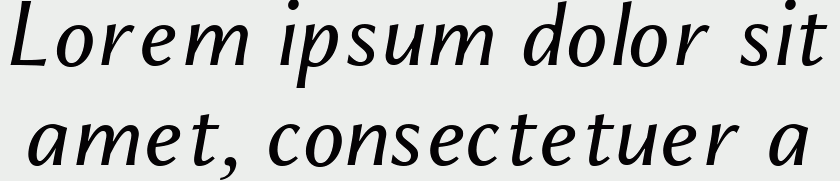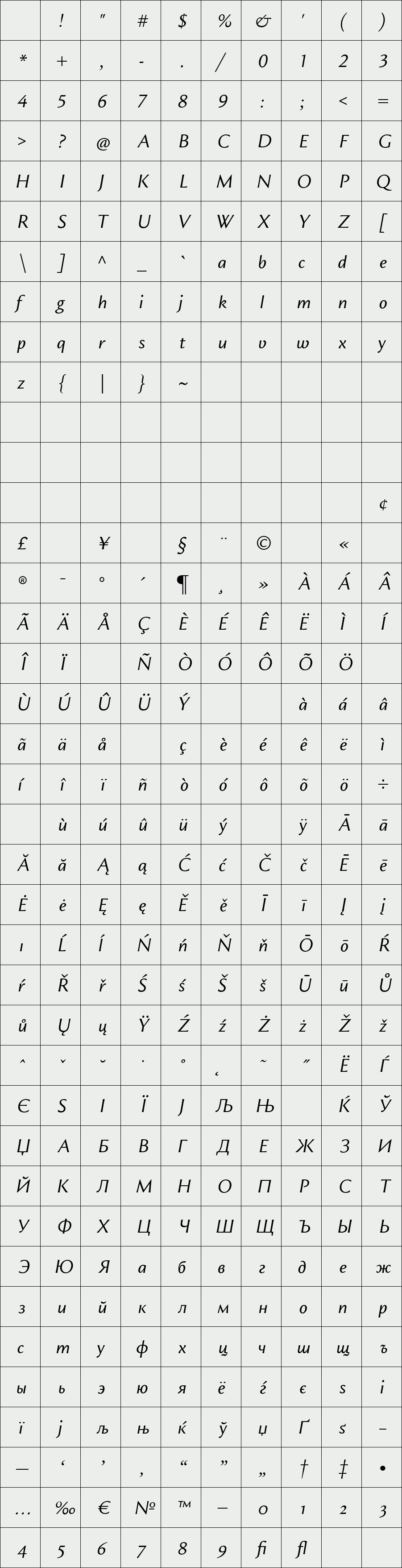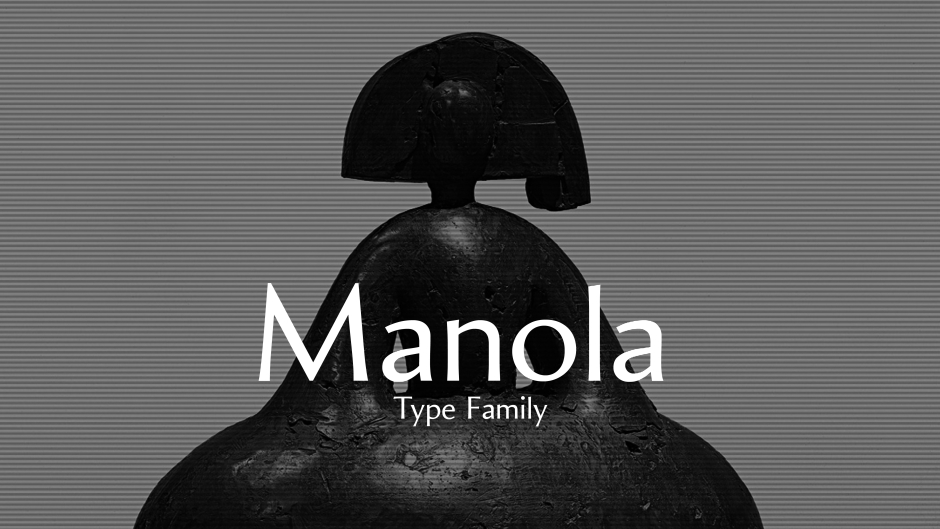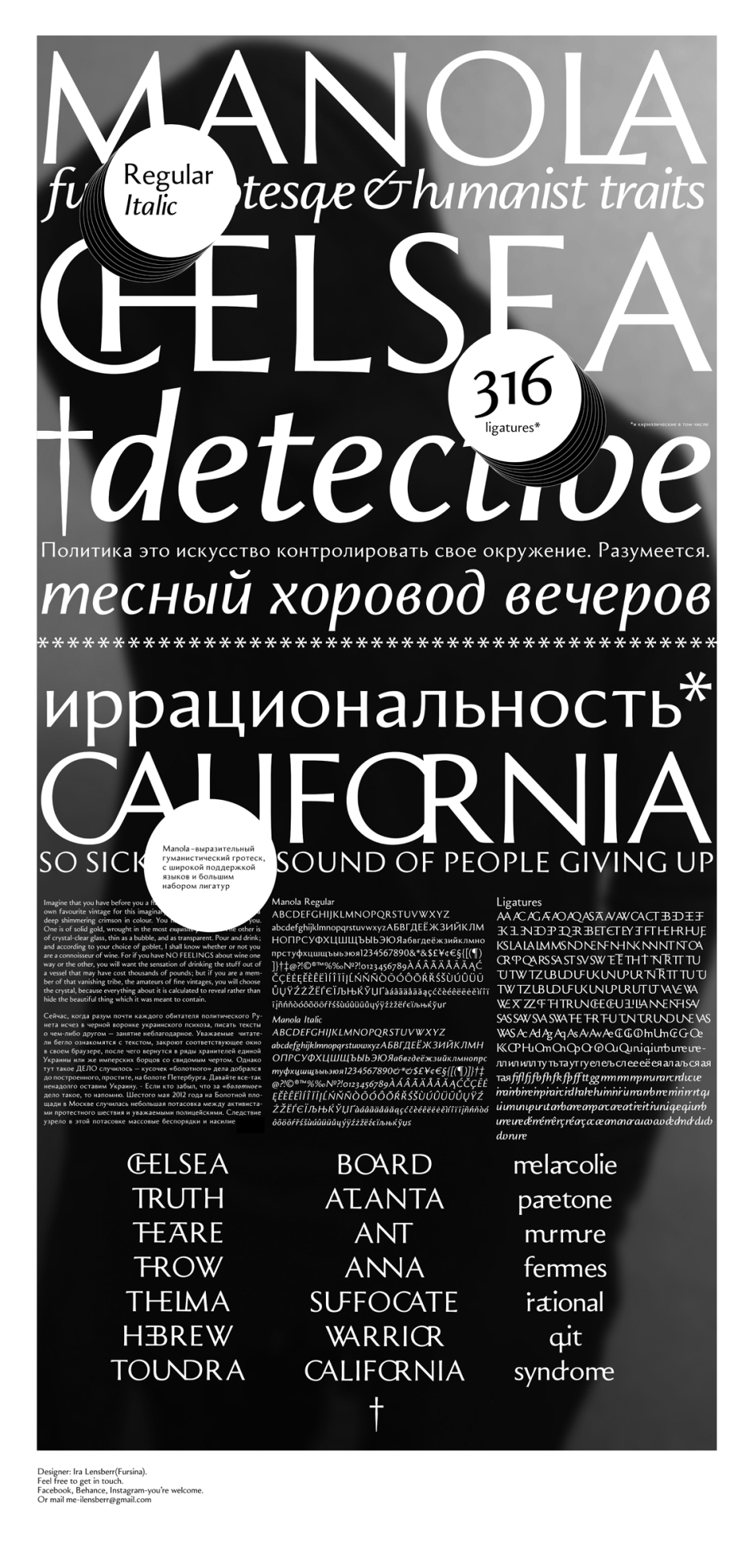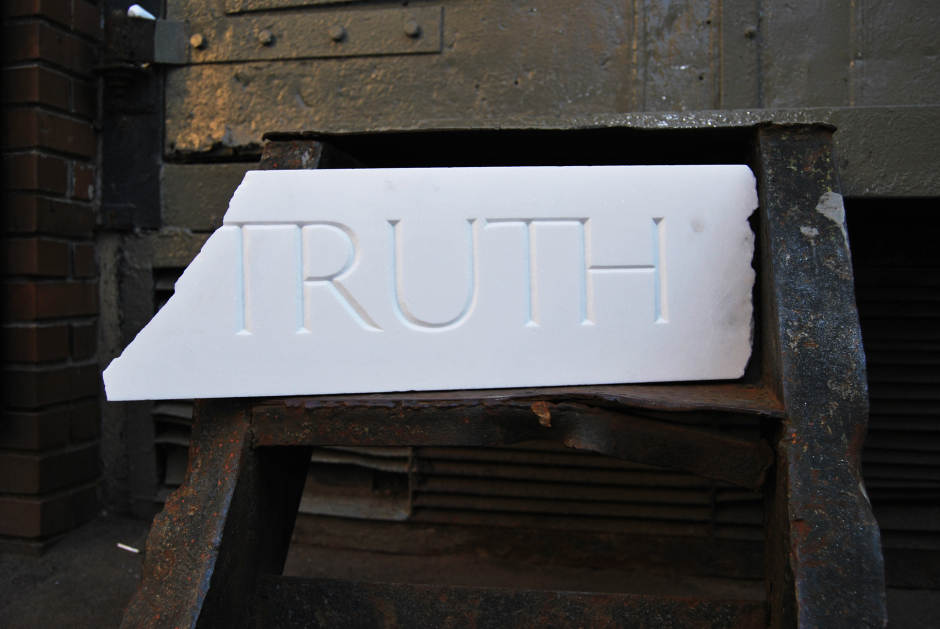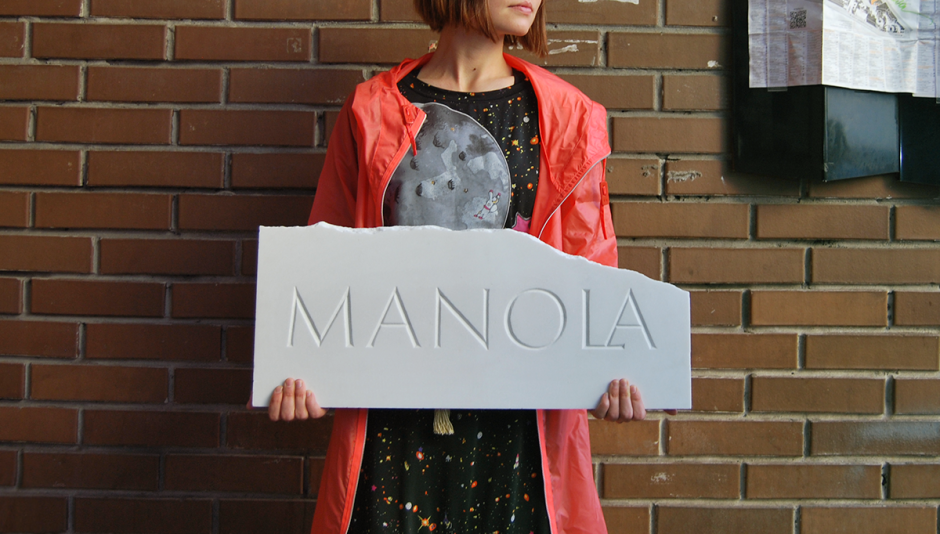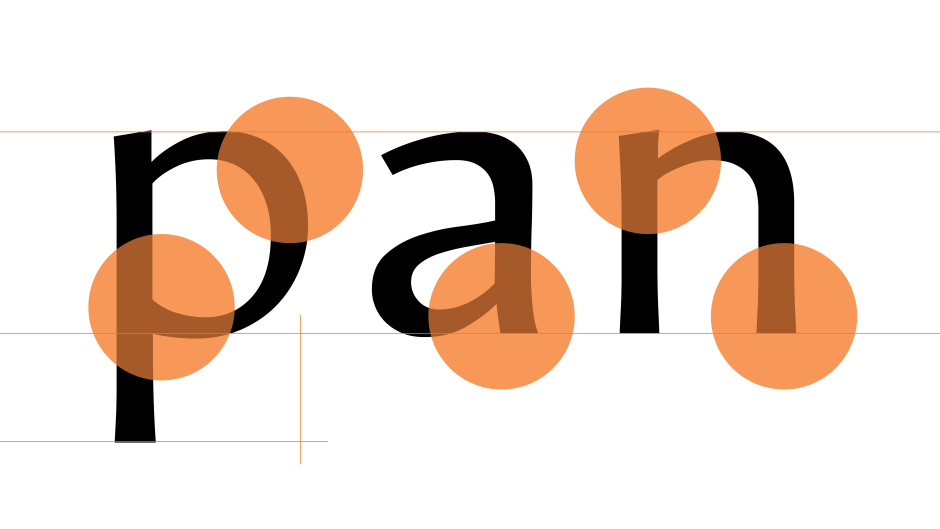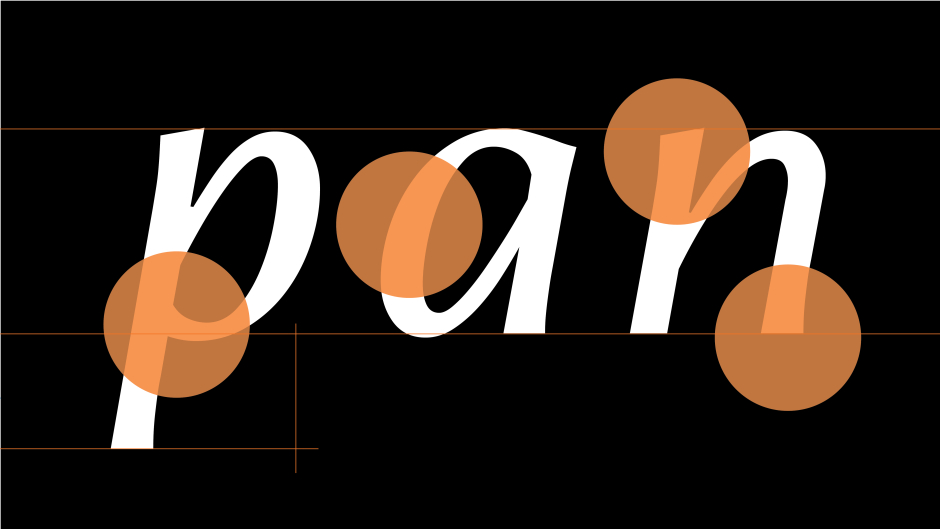
Manola
/ Manola_italic
Expressive humanist grotesque, with a hint of Claude Garamonde's fonts. Fusing grotesque&garalde traits. Exists in 2 sets:Regular&Italic. Supports major European&Cyrillic languages. Contains lots of ligatures-318(and cyrillic too). Creates a spacious suite. Works good in carving.
Designer: Irina Fursina